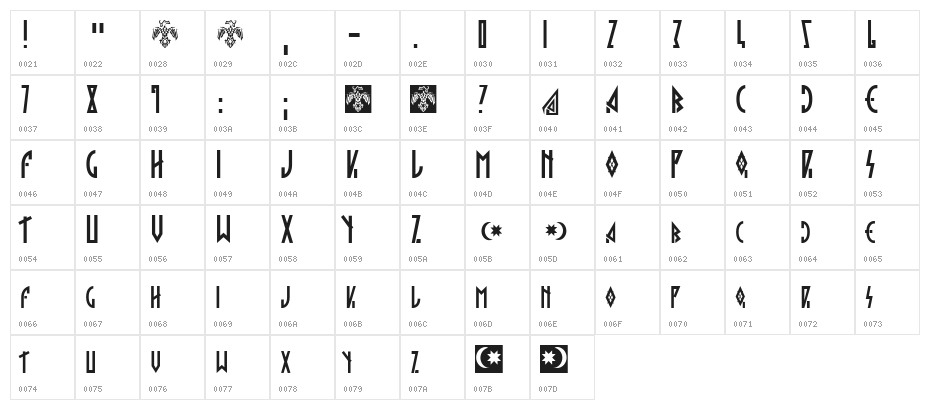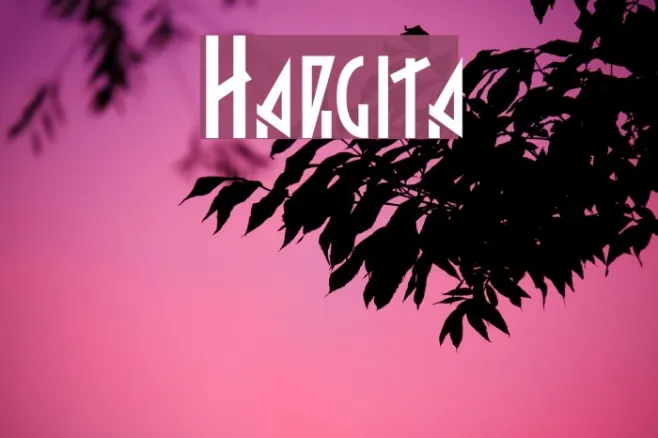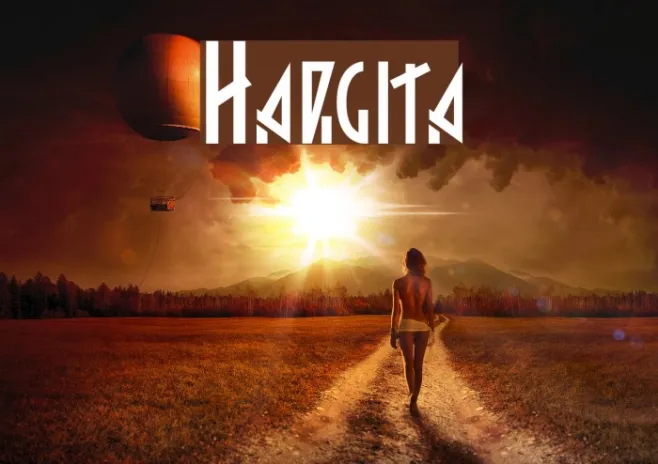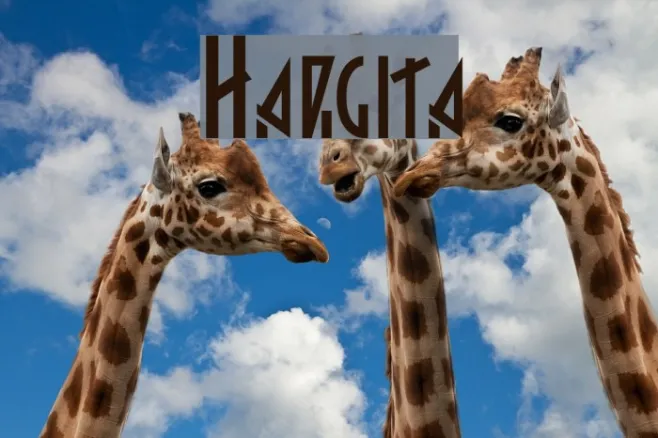
Hargita Font
✎ Art Deco
Hargita Description
This font features a bold and geometric design with sharp angles and a distinct Art Deco influence. The uppercase letters are characterized by their angular forms and unique embellishments, such as the diamond shapes within the 'O' and 'Q'. The lowercase letters maintain a similar geometric style, offering a cohesive look across both cases. Numbers are crafted with the same angular precision, providing a consistent aesthetic. Special characters are stylized to match the overall theme, making this font ideal for creating striking visual statements.
| Overall Style | Vintage, Decorative |
| Proposed Projects | Ideal for branding, posters, and any design projects that require a bold, vintage-inspired aesthetic. |